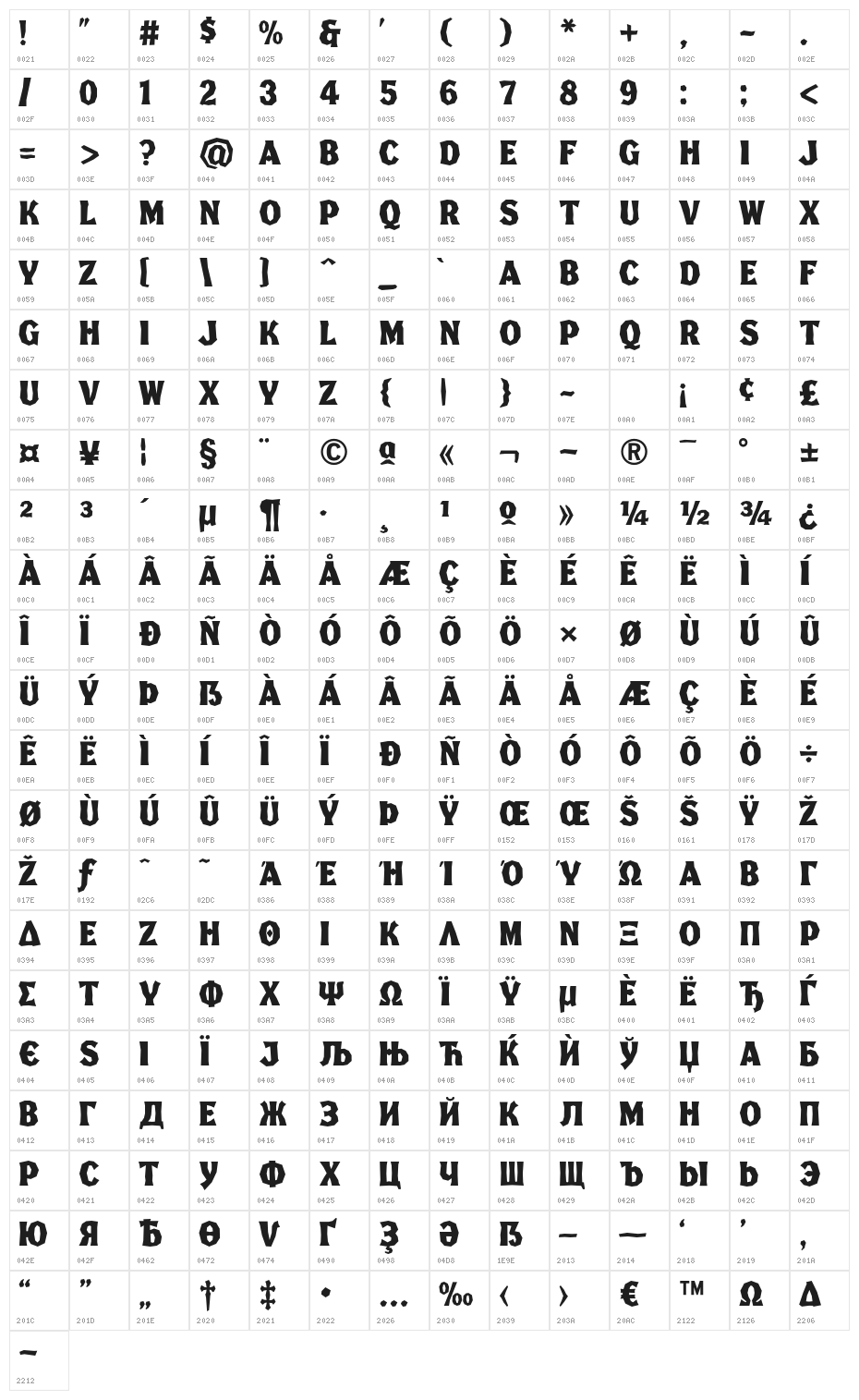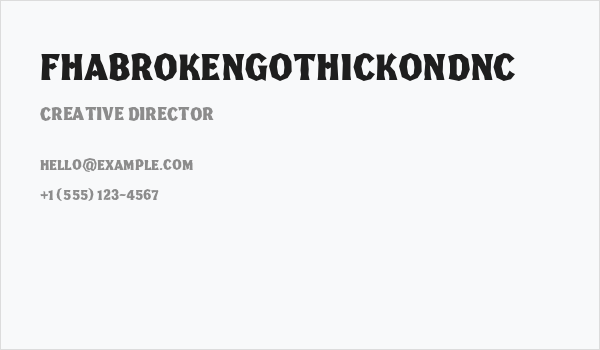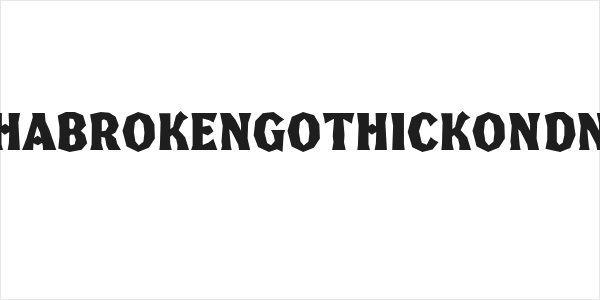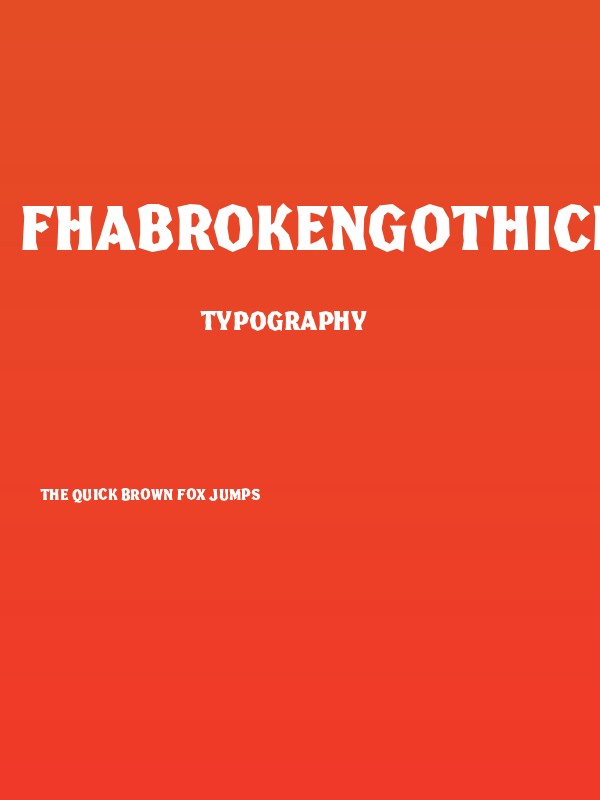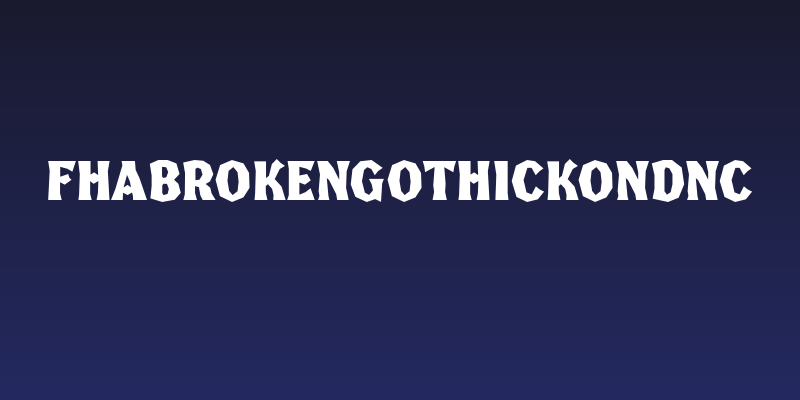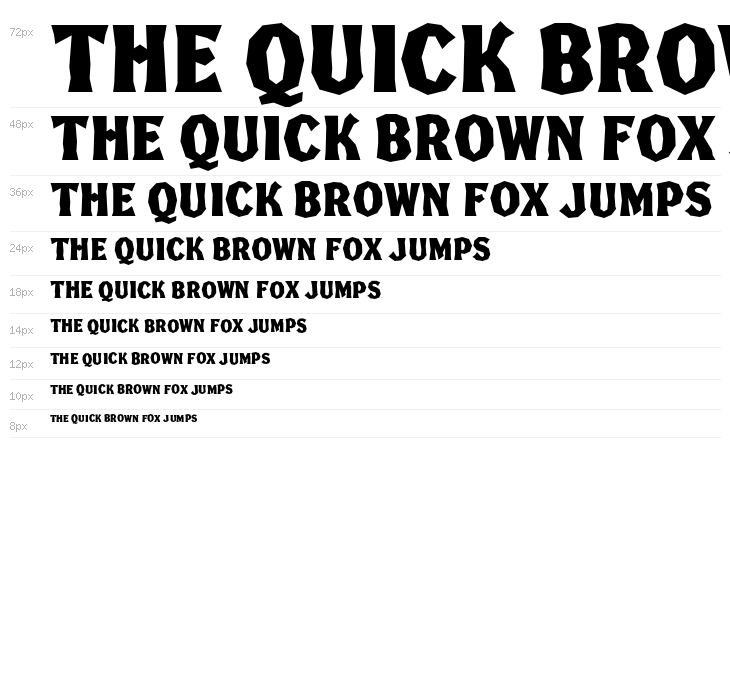
FHABrokenGothicKondNC Font
FHABrokenGothicKondNC Description
This font features a bold and striking design with a broken, gothic aesthetic. The characters are heavily stylized, with sharp angles and a rugged appearance that evokes a sense of strength and edginess. The uppercase and lowercase letters maintain a consistent style, with a slightly condensed form that enhances their dramatic impact. Numbers and special characters are equally bold and match the overall theme, making this font suitable for attention-grabbing designs. The unique, fragmented look of the characters gives it a distinctive personality, perfect for projects that require a touch of rebellion or a gothic vibe.
| Overall Style | Gothic, Edgy, Bold |
| Proposed Projects | Ideal for posters, album covers, branding for edgy or alternative products, and any design needing a strong, gothic touch. |